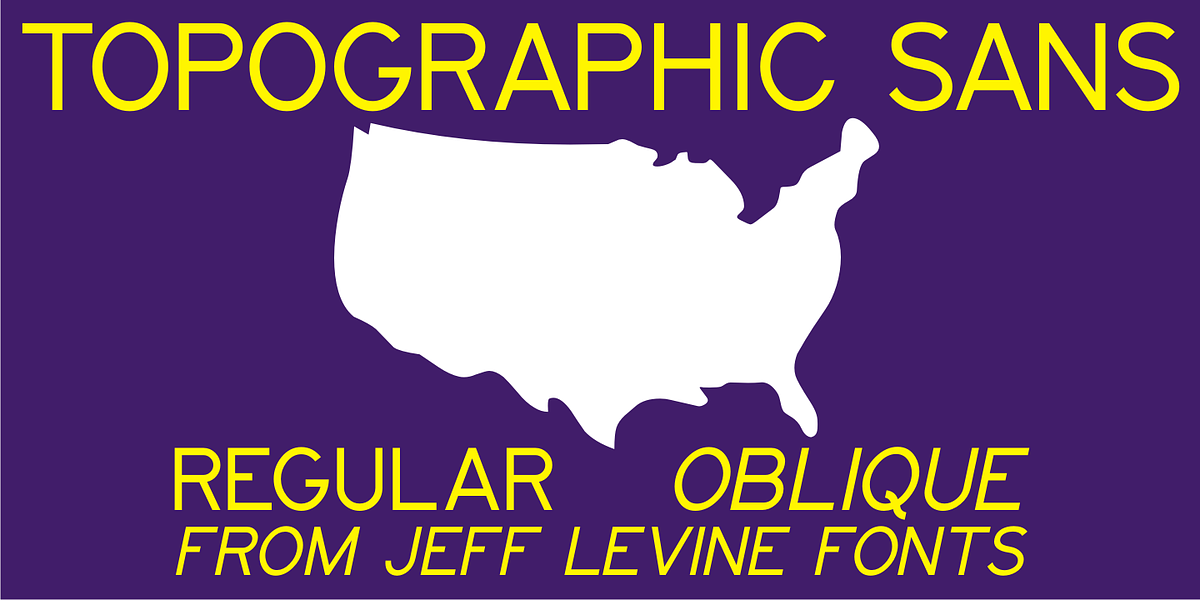
Topographic Sans JNL
A 1940s-era book from the U.S. Army Corps of Engineers entitled “Topographic Drafting” features a page for ‘lettering construction and spacing’ in the process of map making.
The letters and numbers were formed on grids using that mechanical drafting process for uniformity in stroke width.
This was the basis for Topographic Sans JNL, which is available in both regular and oblique versions.